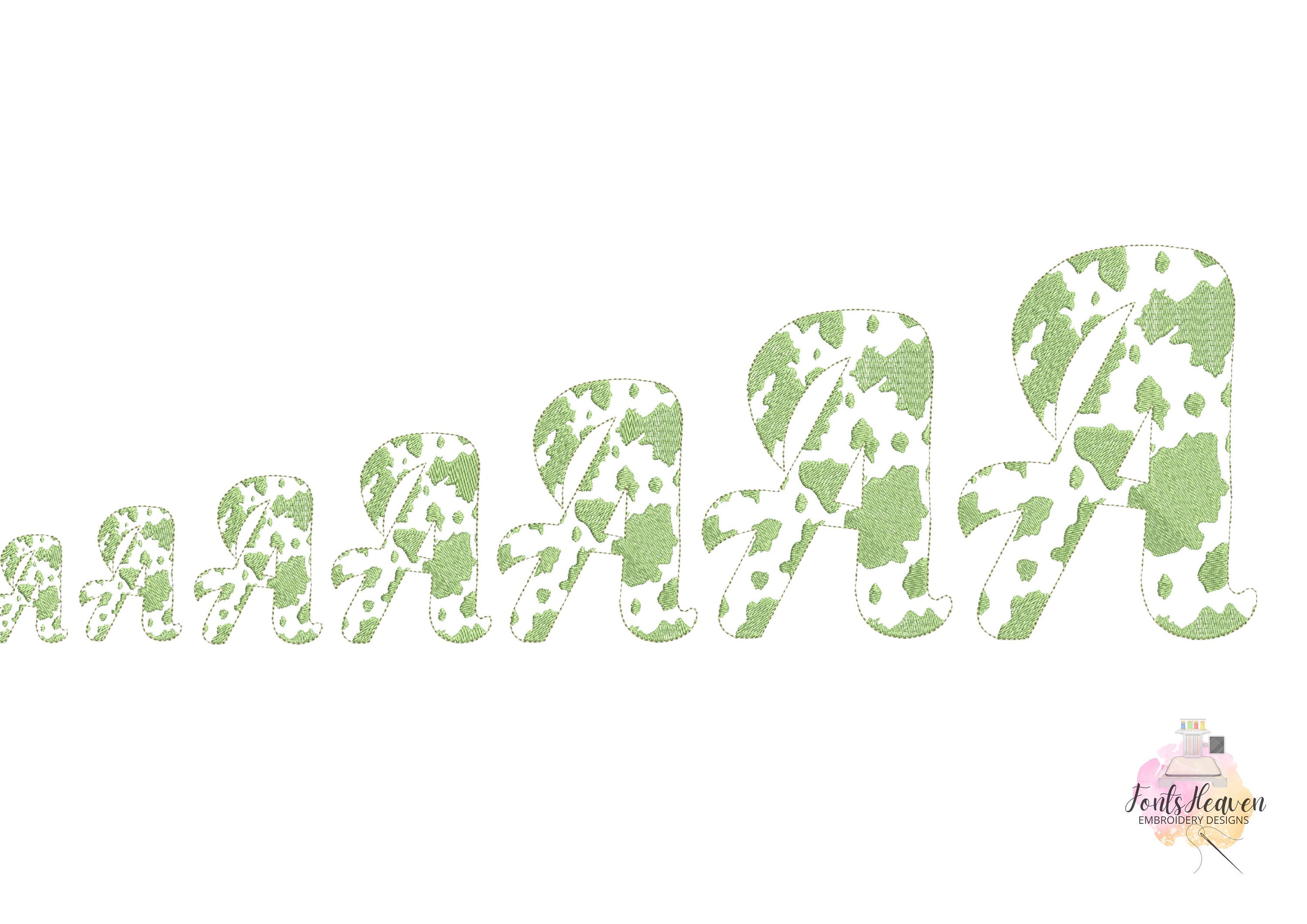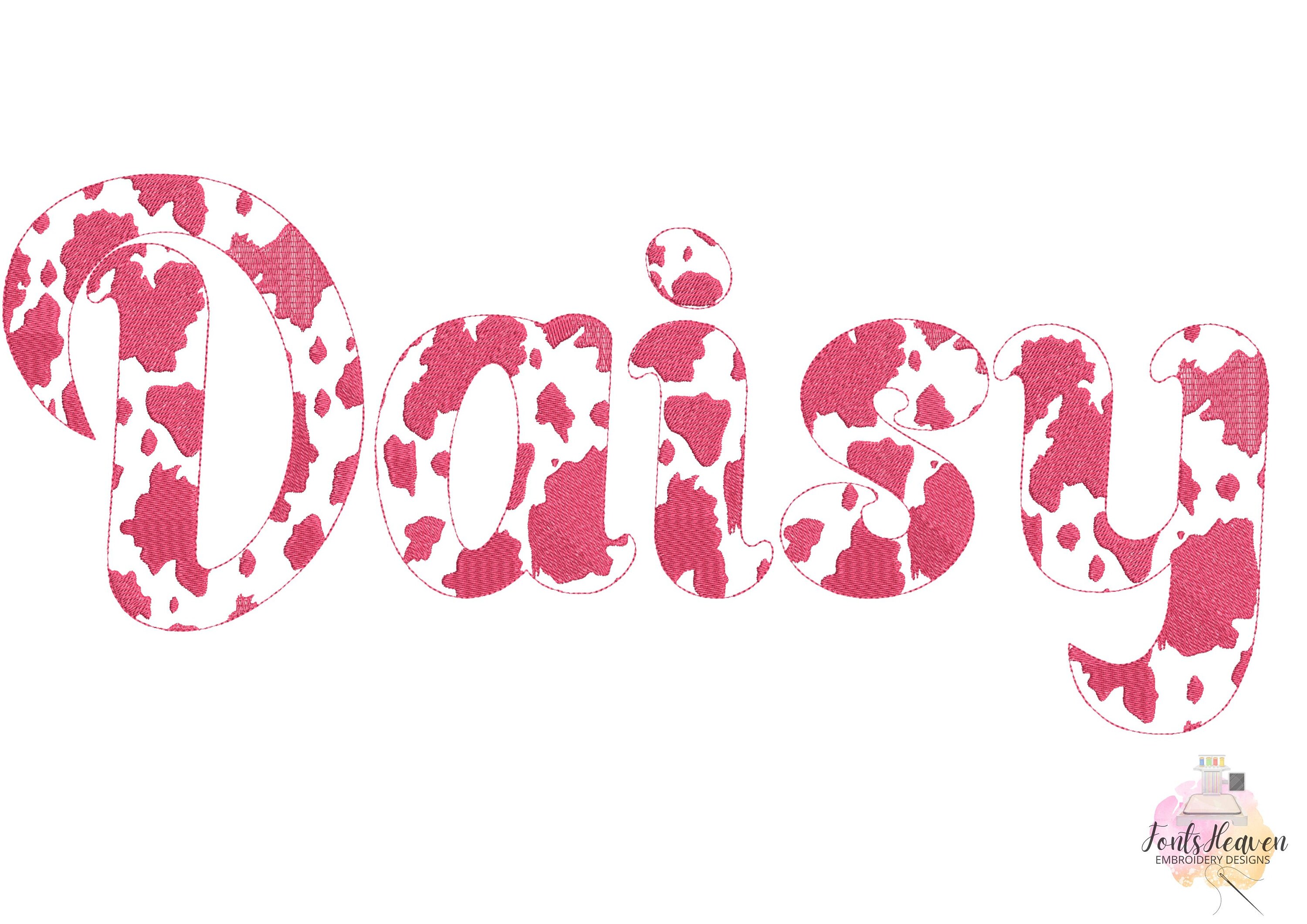
Cow spots cowgirl script handwritten cursive Font alphabet machine embroidery designs from 1.6 thru 6 inches, monogram name BX
Uppercase and lowercase letters, numbers, punctuation
The font is transparent, it has fill stitched spots and outline. The background fabric looks through. Awesome effect!